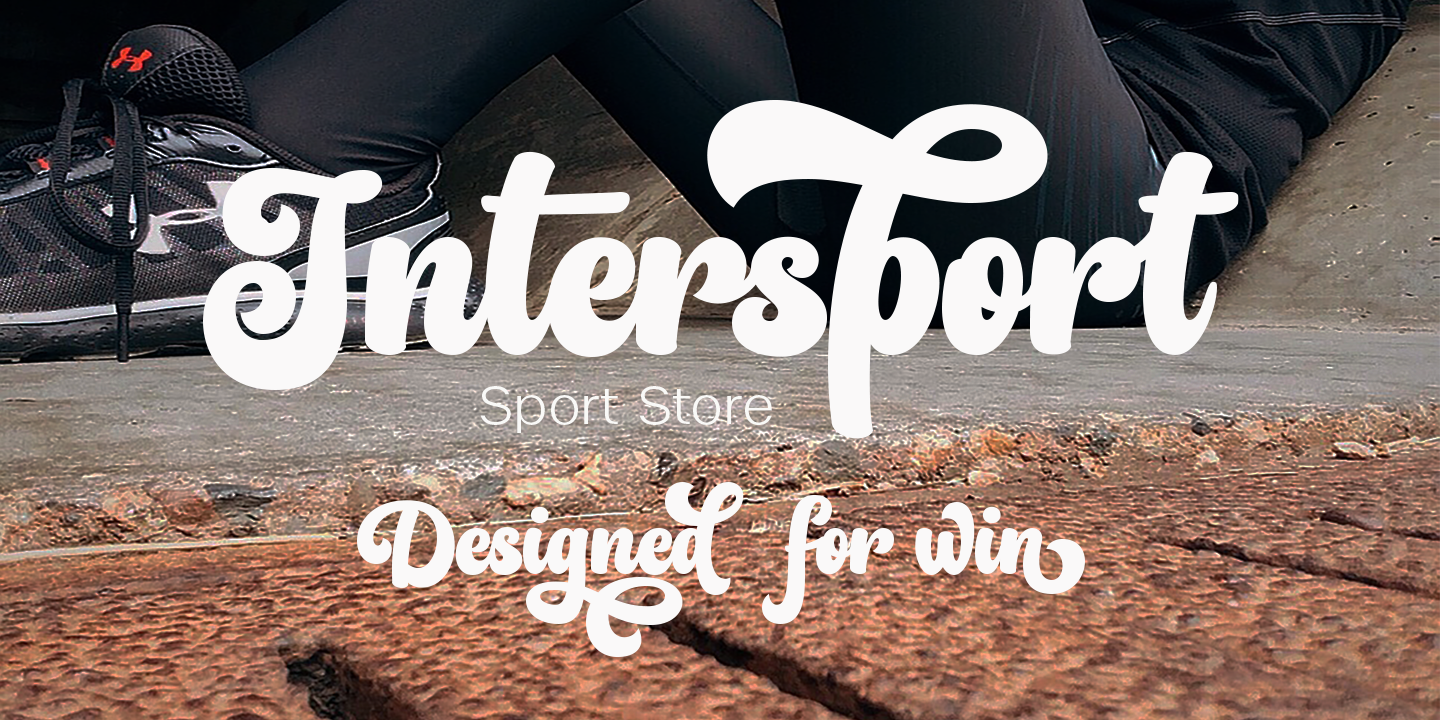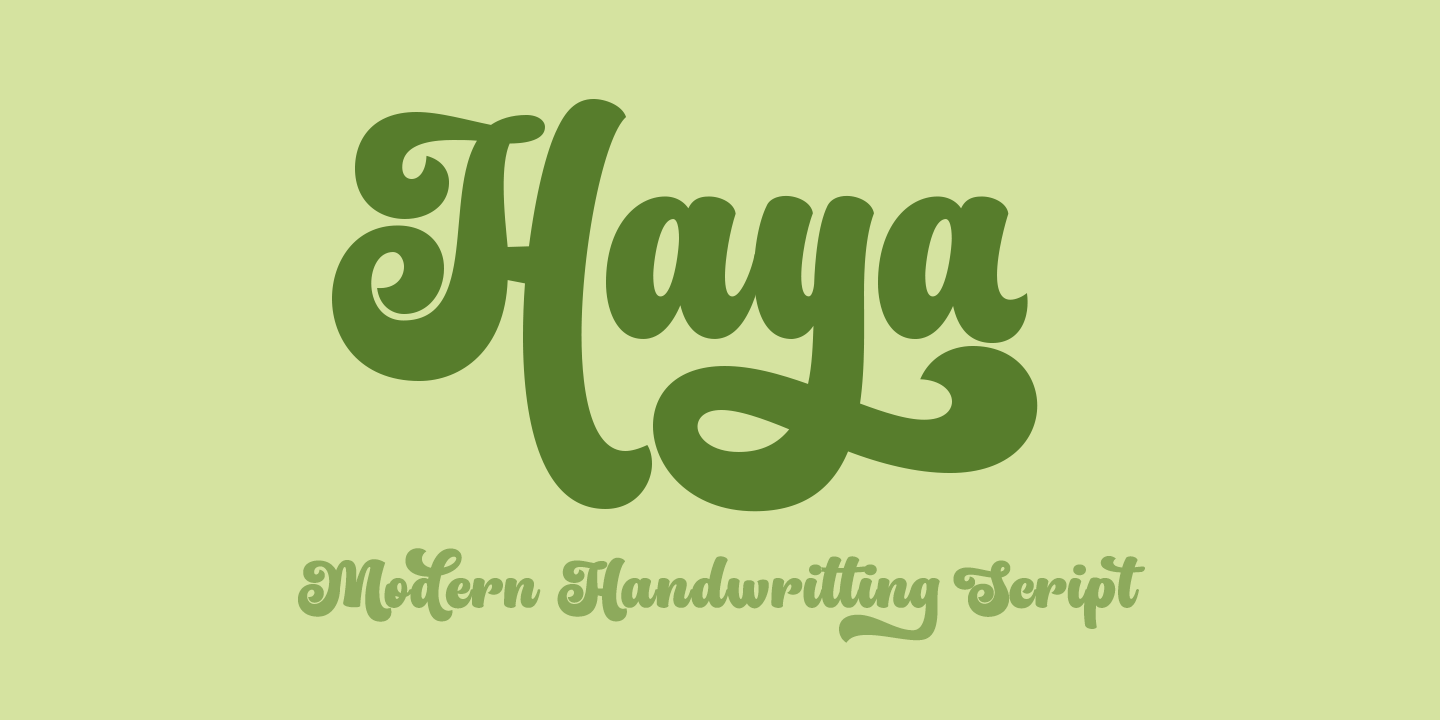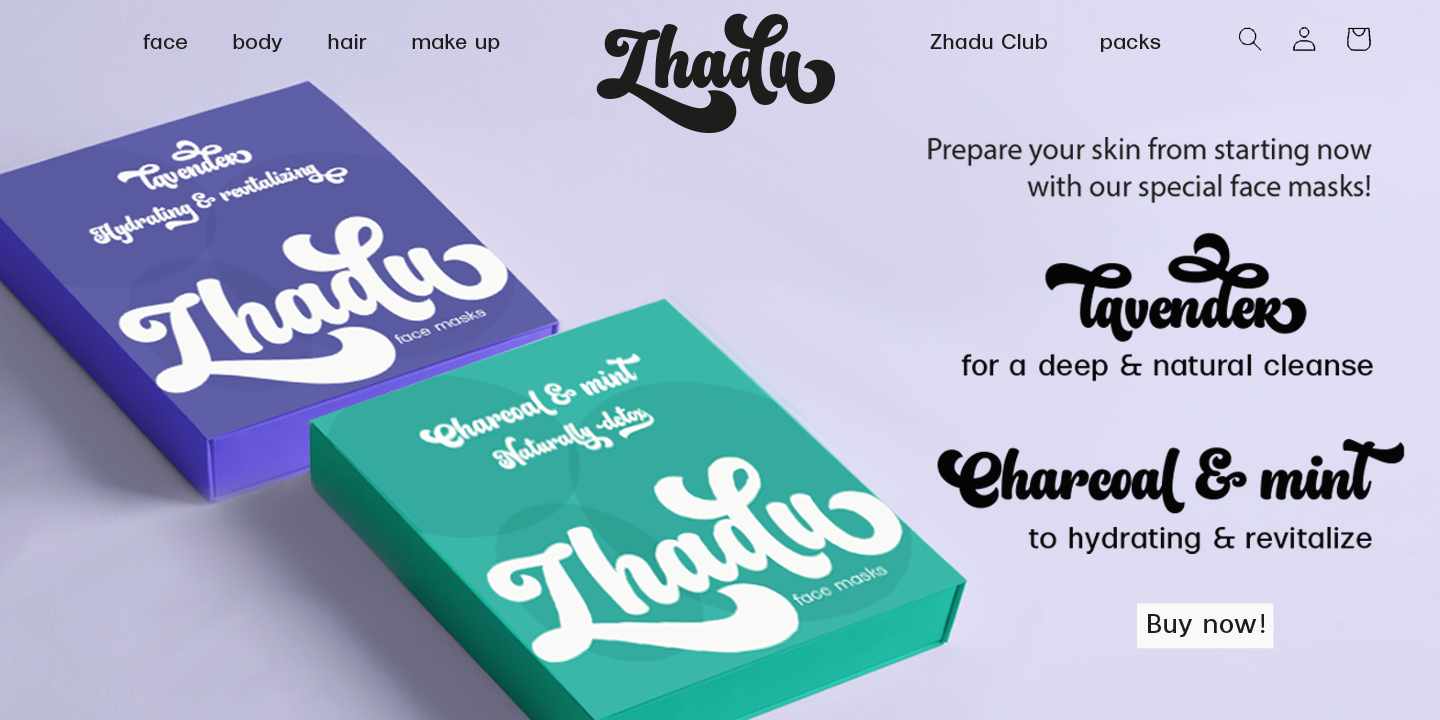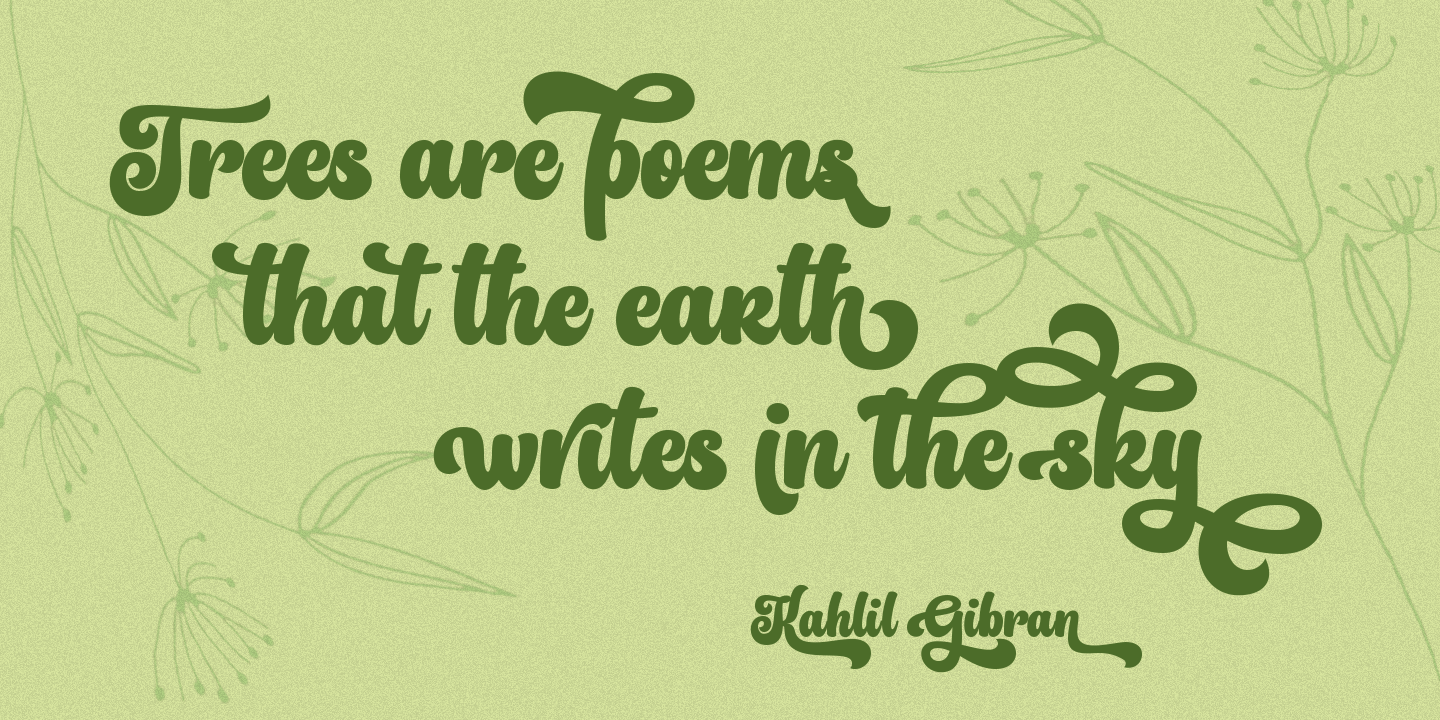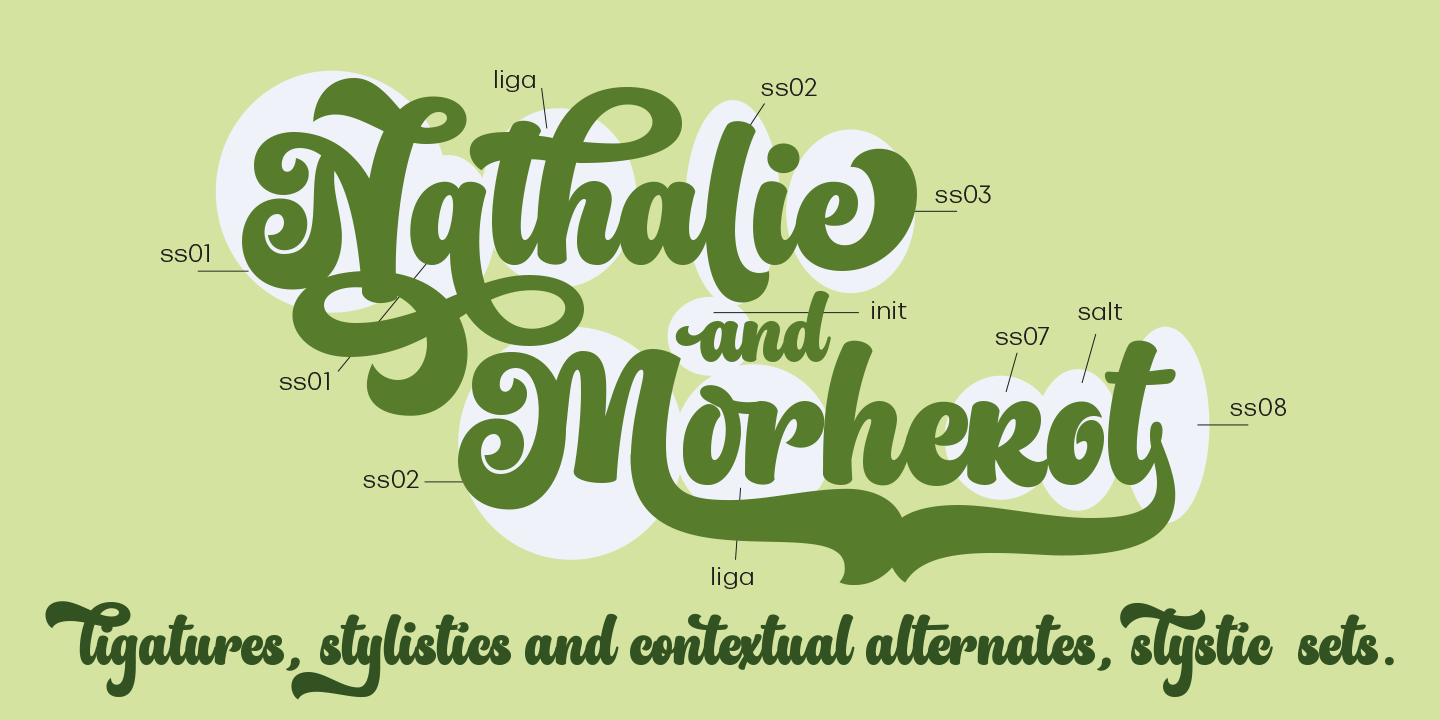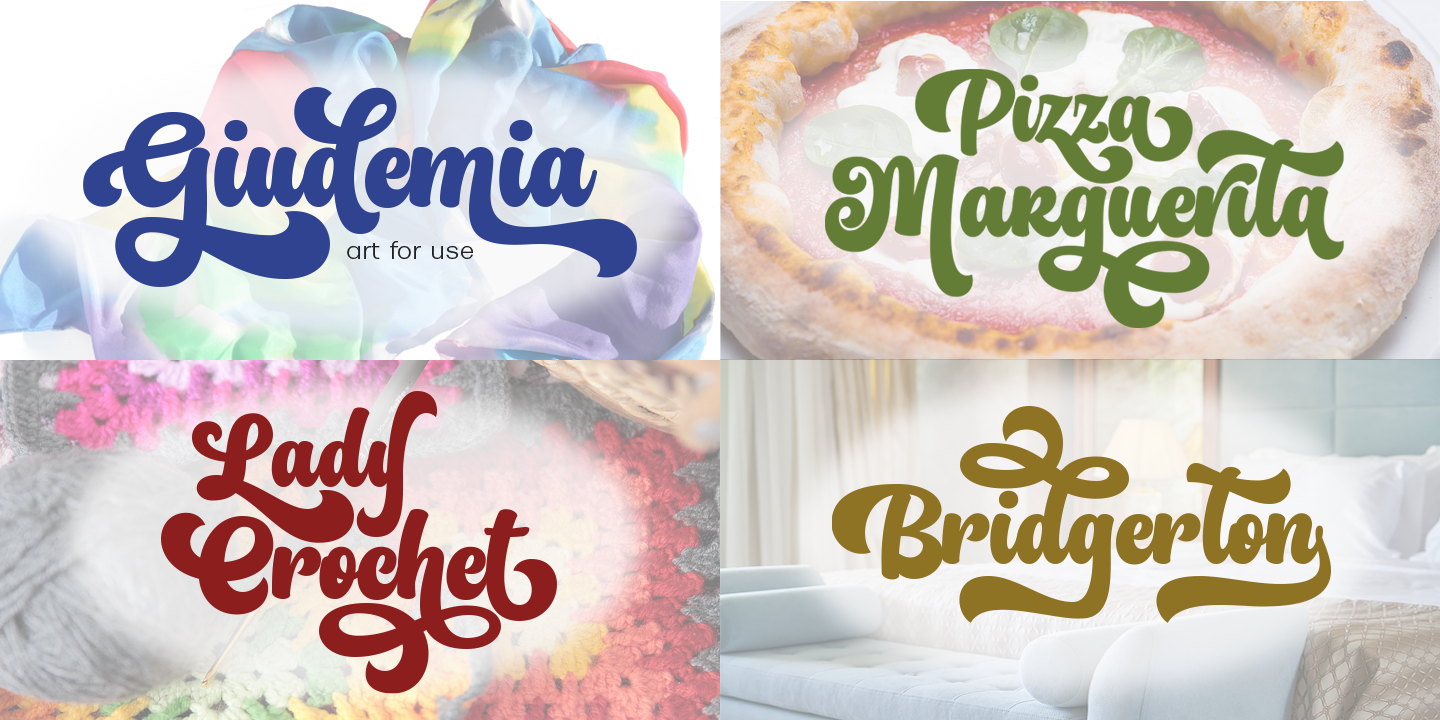
Haya
An Expressive Organic Brush Font
Meet Haya – the organic handwritten font that brings a bold, eye-catching touch to your designs! With its flexible style, Haya lets your text flow naturally, thanks to its unique connection alternatives. It’s perfect for making your words stand out with a spontaneous, hand-made feel.
Ideal for Fashion & Lifestyle Branding
Haya is ideal for everything from titles, logos, posters, and packaging to invitations, greeting cards, magazine and book covers, children’s items, and luxury fashion. Basically, if you want it to look great with a human touch, Haya is the way to go.
Advanced OpenType Features
Haya is packed with features, stylish sets in both uppercase and lowercase, standard and contextual alternatives, ligatures, and a full range of international characters. This means your text will always look dynamic and lively, without repetitive letterforms. Enjoy!